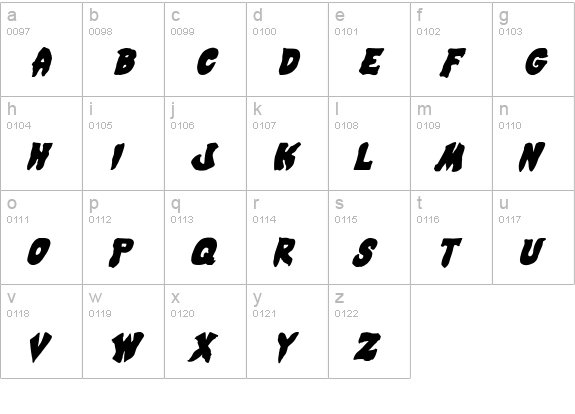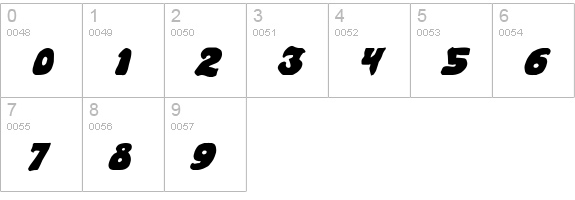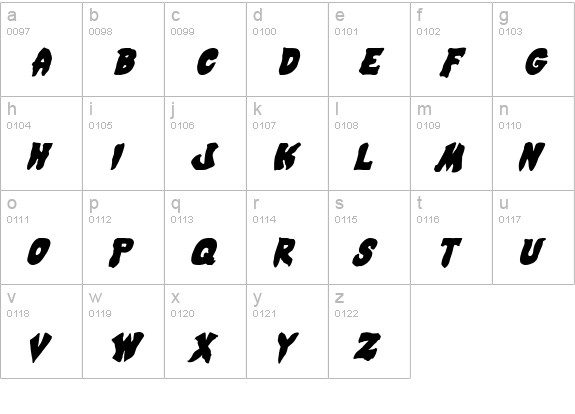
Mystic Singler Italic is a distinctive, italic variant in the Mystic typeface family \xE2\x80\x94 well suited to design and typography projects.
Introducing Mystic Singler Italic font, a captivating typeface that exudes elegance and mystery. Its sleek and modern design makes it perfect for a wide range of creative projects, from branding to editorial design. The italicized style adds a touch of sophistication and flair to any text, making it stand out from the crowd. What sets Mystic Singler apart is not only its striking appearance but also its versatility. Whether you're designing a logo, poster, or website, this font will bring a touch of magic to your work. Its unique personality will captivate your audience and leave a lasting impression. Best of all, Mystic Singler Italic font is completely free to download at FontsMarket.com. This means you can add this enchanting typeface to your collection without breaking the bank. Don't miss out on the opportunity to elevate your design projects with this stunning font. Download Mystic Singler Italic today and let your creativity soar!